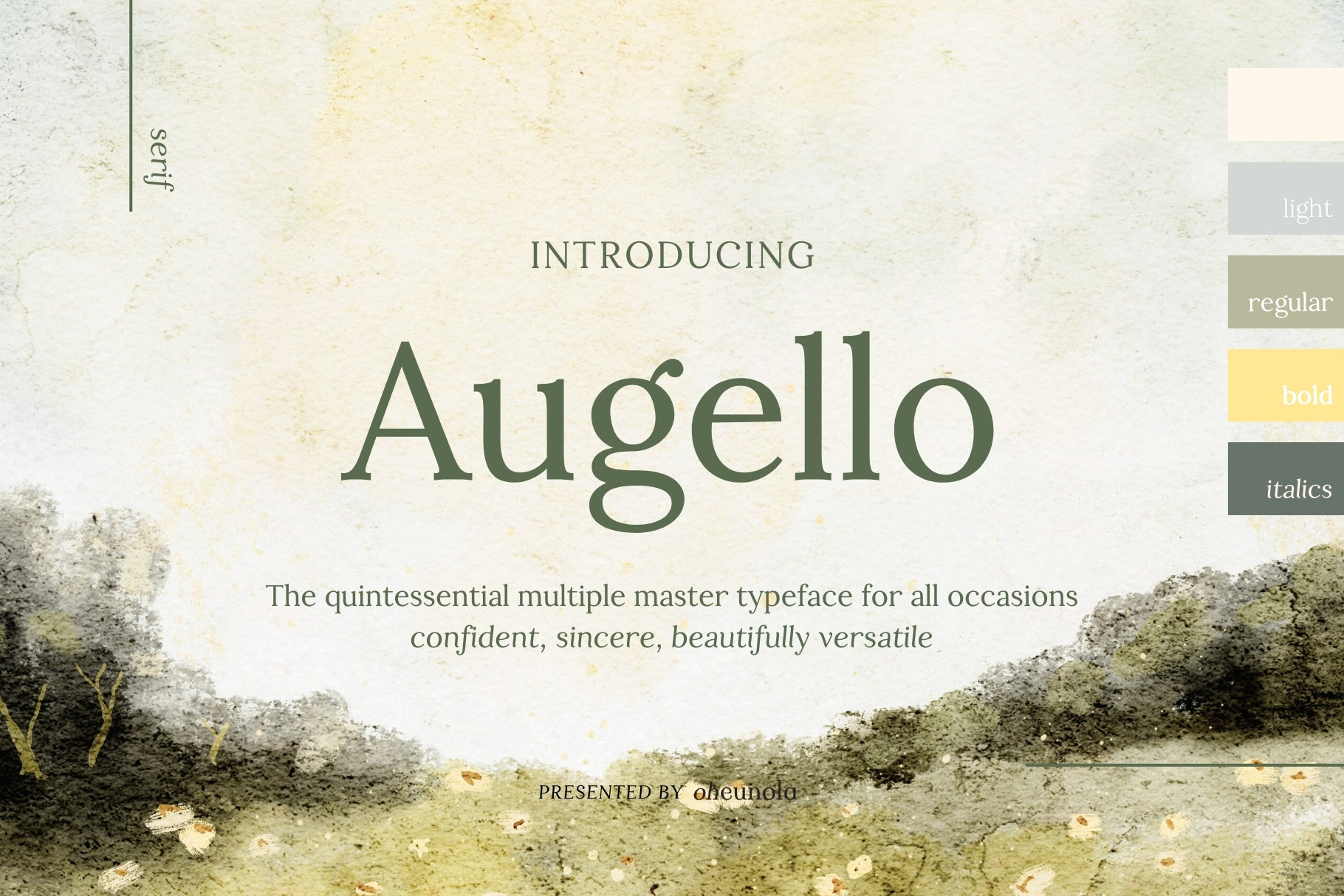
Augello Timeless Serif Typeface
Introducing Augello – a timeless serif typeface designed to meet the demands of modern design projects. With its classic yet versatile design, Augello is perfect for a wide range of applications, from branding and editorial design to packaging and advertising. Its elegant serifs and balanced proportions make it a popular choice among designers looking for sophistication and refinement. Whether you're creating a sleek corporate identity or crafting a vintage-inspired poster, Augello's versatility ensures that your typography will always make a statement.
- Multiple masters typeface: regular, light, bold, italics